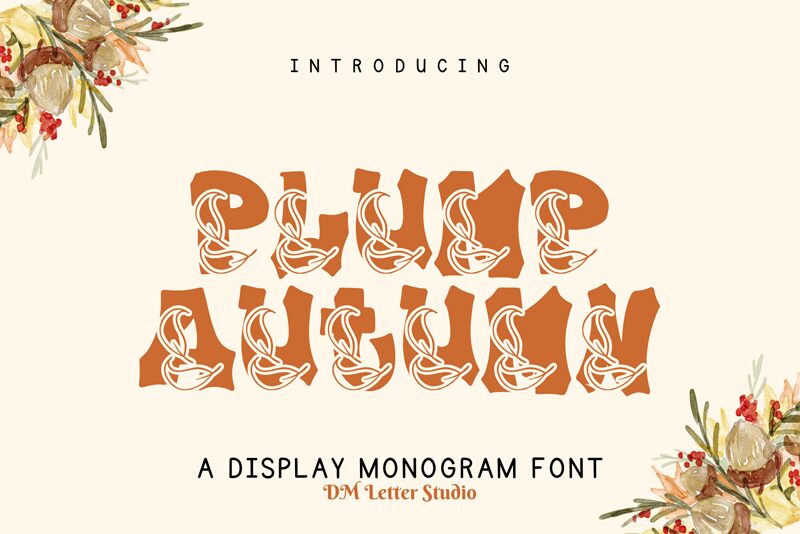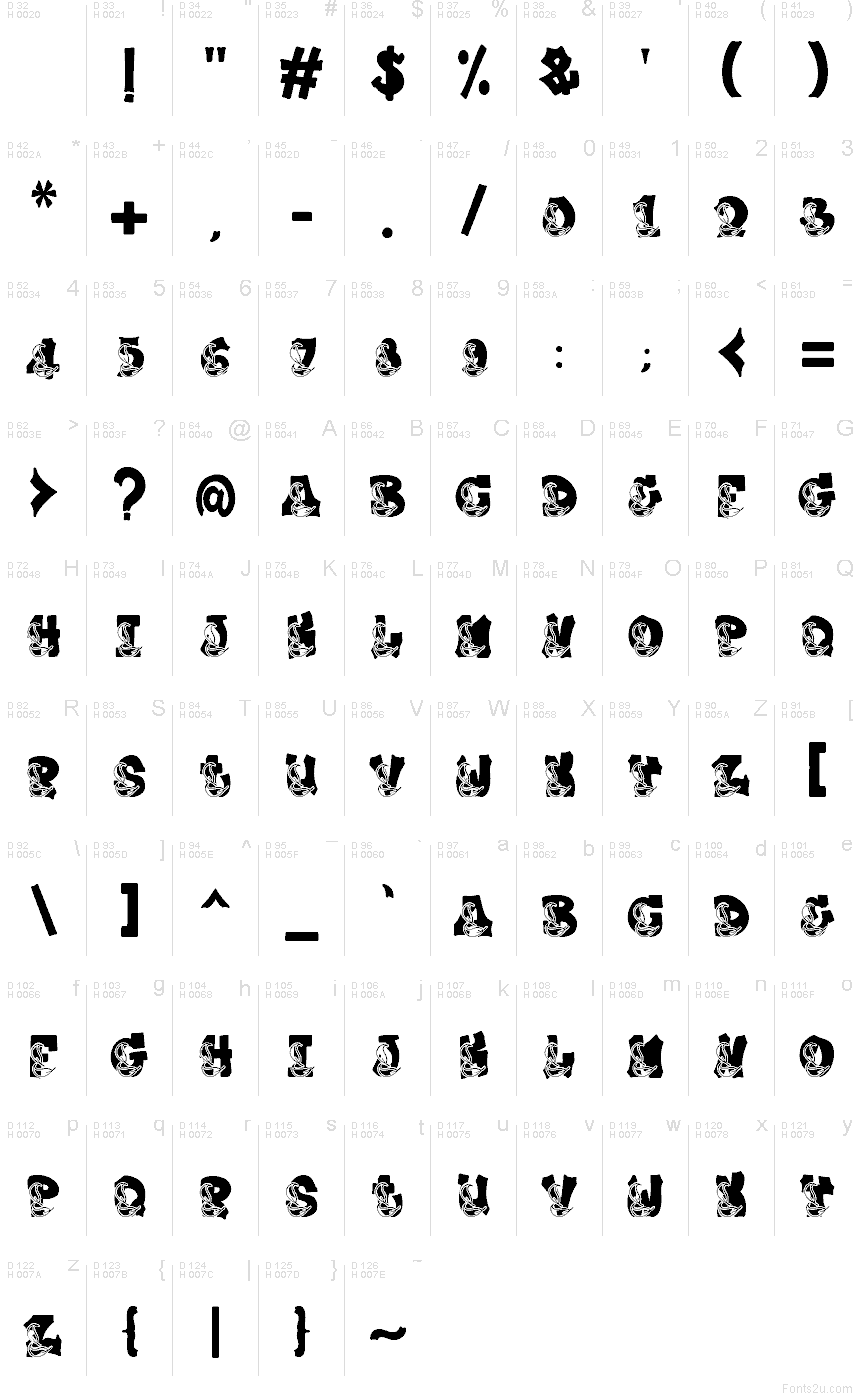
Plump Autumn
Plump Autumn font by DM Letter Studio - Dimas Prasetyo is a free decorative display typeface that turns every letter into a tiny fall illustration. Chunky, upright forms are packed with swirling leaves, plump pumpkins, and curling vines, creating the feeling of a hand-cut paper banner or a cozy market sign. The dense black shapes and detailed interiors make headlines feel festive and full, even at a quick glance.
Using Plump Autumn, you can anchor seasonal projects like fall festival posters, Thanksgiving invitations, farmers’ market signage, classroom bulletin boards, craft fair stickers, and warm social media promos. This free font works best big and bold, where the leafy details can breathe; pair it with a simple sans serif for body text so the ornate letters stay center stage.